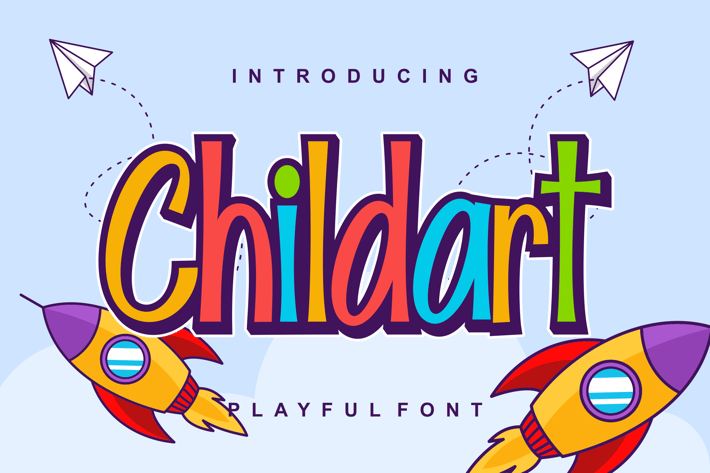
Childart Playful Kids Font
Childart Playful Kids Font inspired by children's writing. Perfect for designs related to a kids vibe, like logos, posters, brochures, billboards and more.
Multilingual support (ÀÁÂÃÅÄÆŒÇÐÈÉÊËÌÍÎÏÑÒÓÔÕÖØŠÙÚÛÜÝŸŽŁ)
Numeral
*Punctuation